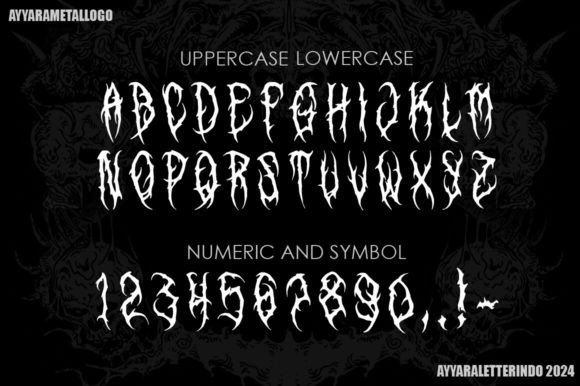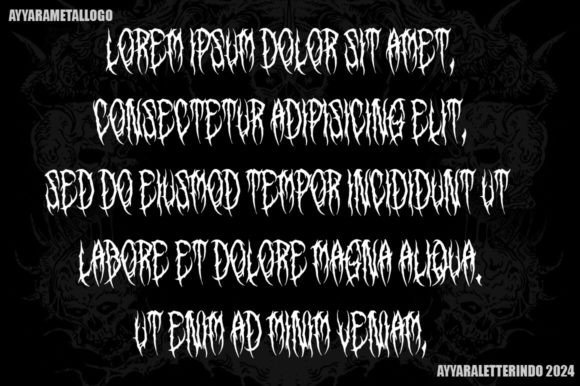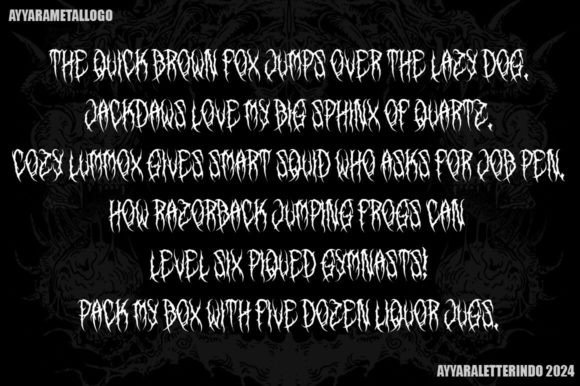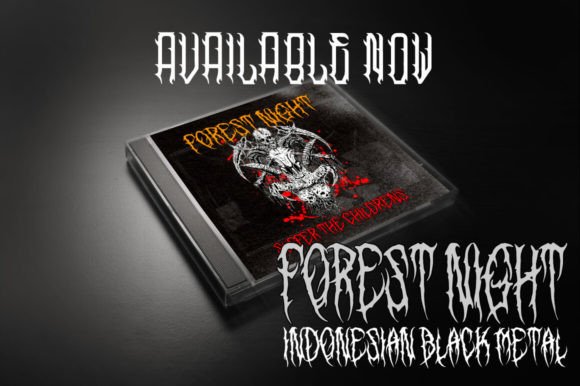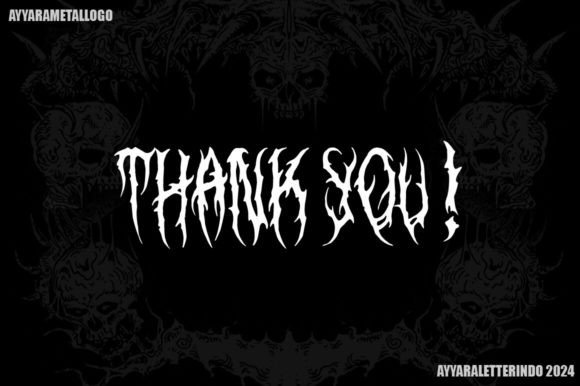
Introduction to Forest Night Font
Forest Night is a metal font can be used for logos or branding and your metal band name.
You can immediately make your band or brand logo name with the help of this unique blackletter font Combine it with the black metal or death metal ornaments and make your cool metal design with ease.